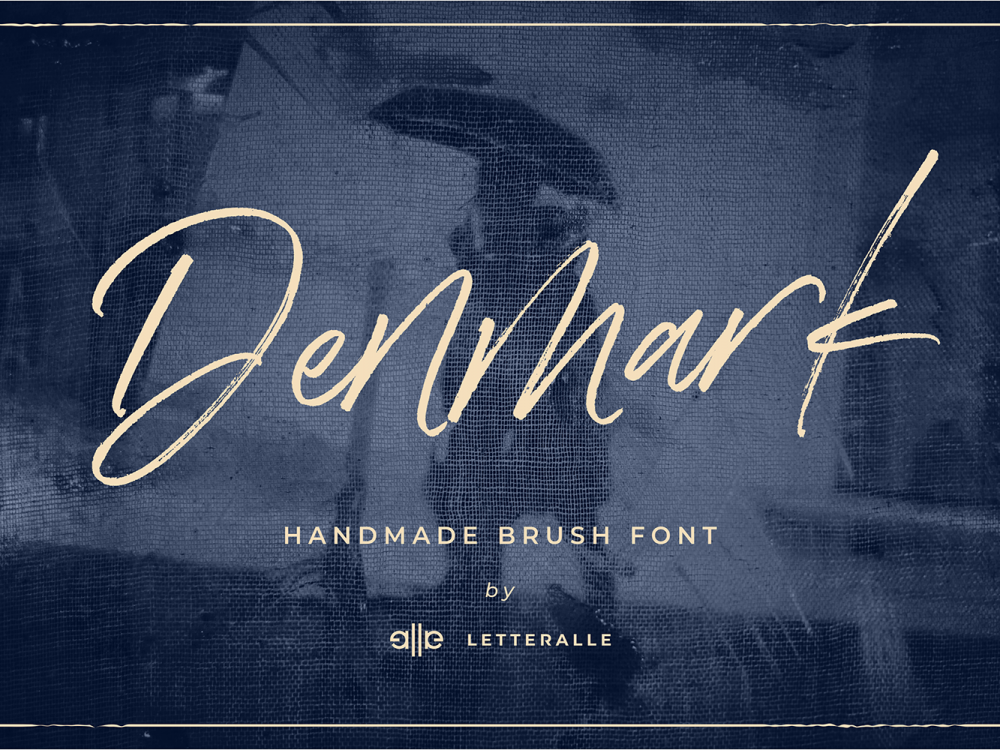
Denmark Free Font
Denmark Free Font is an interesting elegant handwritten typeface that mimics the writing of a brush and sets itself apart from other fonts in a modern style. This font is very well suited for various projects that require a scripted modern brush handwritten font. Use this font to create memorable romantic posters, wedding invitations, greeting cards, branding, flyers, t-shirt and pillow prints, and more. Improve your professional level using this font. If you like it don’t forget to check out the full version.